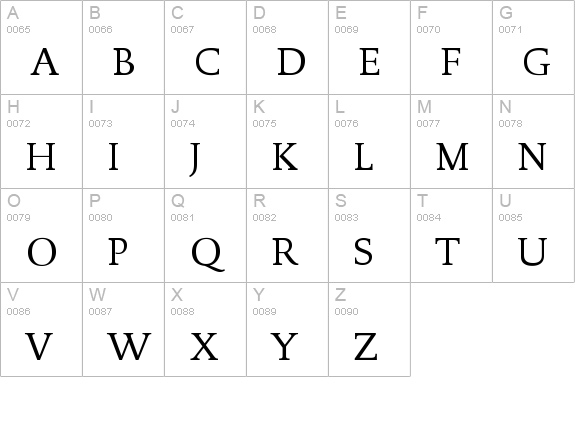
Documenta Dtl Regular Font Details
Documenta Dtl Regular is the standard, neutral variant in the Documenta typeface family \xE2\x80\x94 well suited to general body text, paragraphs, and standard typographic work.
Documenta Dtl Regular font is a classic and versatile typeface that exudes elegance and sophistication. Its clean lines and balanced proportions make it perfect for a wide range of design projects, from editorial layouts to branding and packaging. With its timeless appeal and readability, Documenta Dtl Regular is a popular choice among designers and typographers alike. Whether you are creating a sleek corporate identity or a stylish magazine layout, this font will add a touch of refinement to your work. Best of all, Documenta Dtl Regular font is available for free download at FontsMarket.com. This means you can easily access this high-quality typeface without any cost, making it an excellent option for both personal and commercial projects. Don't miss out on the opportunity to enhance your designs with the sophistication and elegance of Documenta Dtl Regular font. Download it now and elevate your typography game!